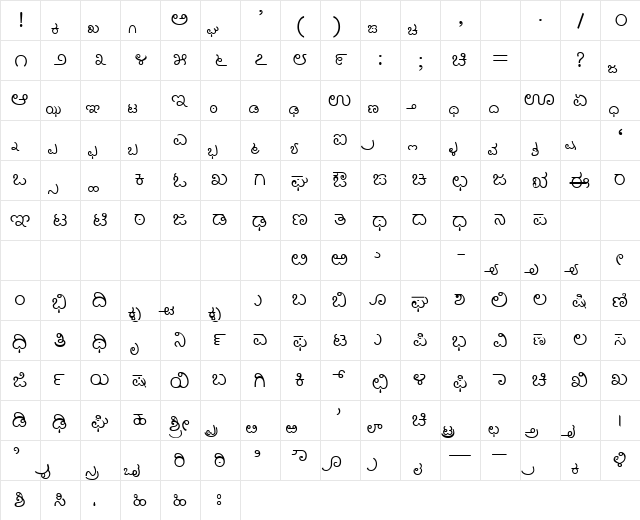
AkrutiKndRagini Normal Font Preview
AkrutiKndRagini Normal
Design Context for AkrutiKndRagini Typeface
AkrutiKndRagini offers clean, dependable letterforms without strong stylistic allegiance, making it a practical choice for designers who need flexibility.